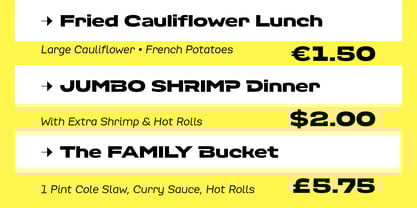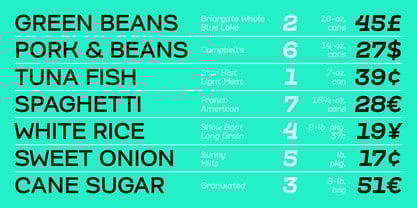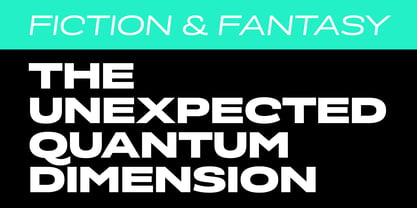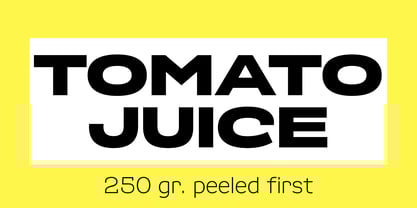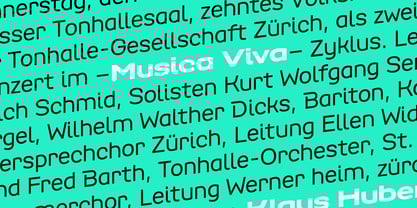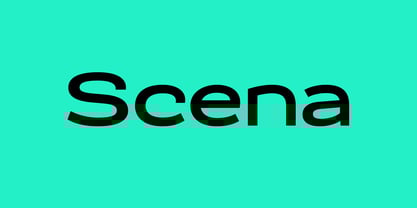
Scena
by Type-Ø-Tones
The Scena Font Family was designed by José Manuel Urós, Sabina Chipară and published by Type-Ø-Tones. Scena contains 28 styles and family package options. More about this family
Scena is a sans-serif typeface crafted with a broad range of styles and proportions, making it equally suitable for extended text and large-scale display applications.
The design began with a simple sketch exploring lowercase letters with bottom loops. From this concept, we developed both normal and wide character sets.
Our initial focus was on the Slanted styles, but as we explored various graphic applications, it became clear that expanding the range to include Roman styles was essential to fully capture Scena’s expressive potential.
The original characters are preserved as Stylistic Sets 2, 3, and 4, while the default set was refined and simplified of certain eccentric features.
Designers: José Manuel Urós, Sabina Chipară
Foundry: Type-Ø-Tones